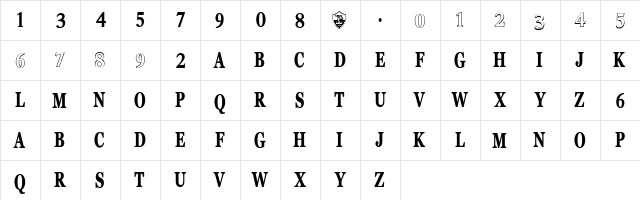
ASRoma Regular
Design Context for ASRoma Typeface
ASRoma is a composed and adaptable typeface that performs quietly and consistently across a wide range of design contexts.